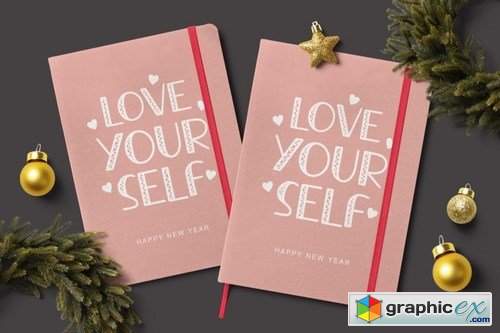
The Bores
This font looks good and simple shape. Suitable for logotype, branding, packaging, quotes, poster, shirt, book, invitation and more custom design. The features uppercase, lowercase, numeral, punctuation & symbol, multilingual support.